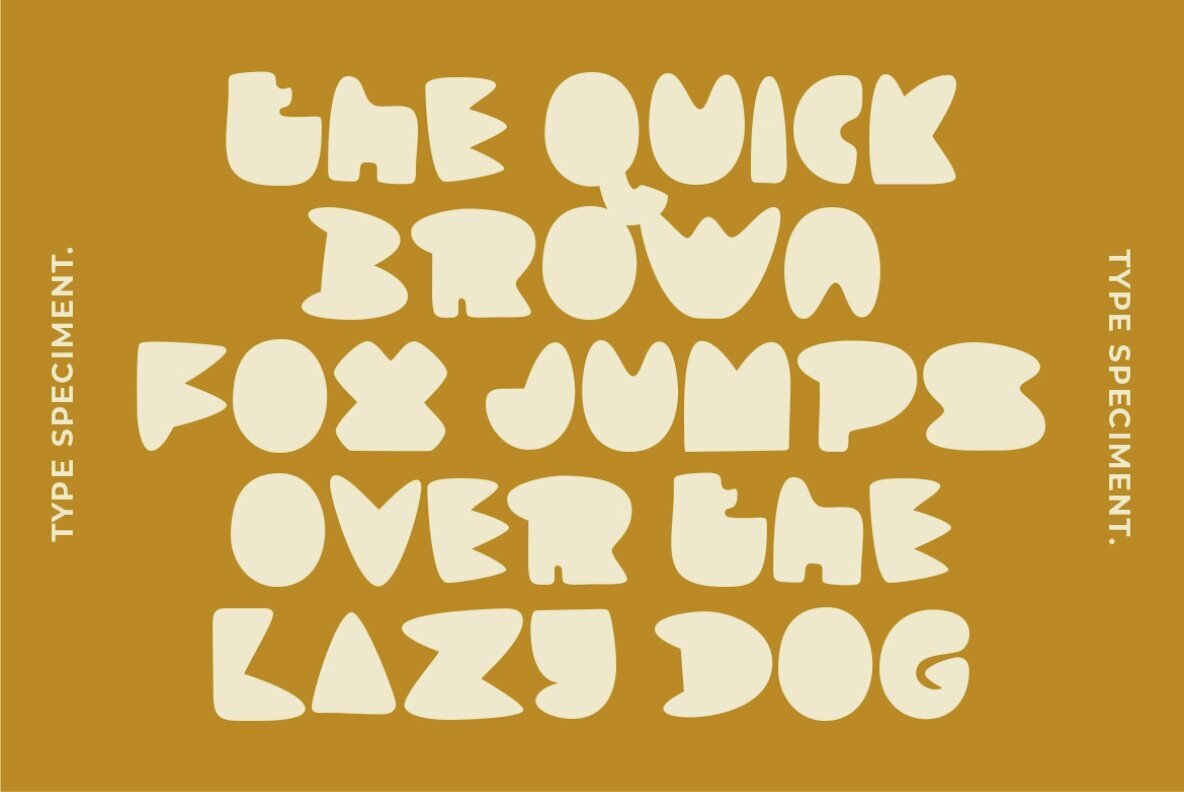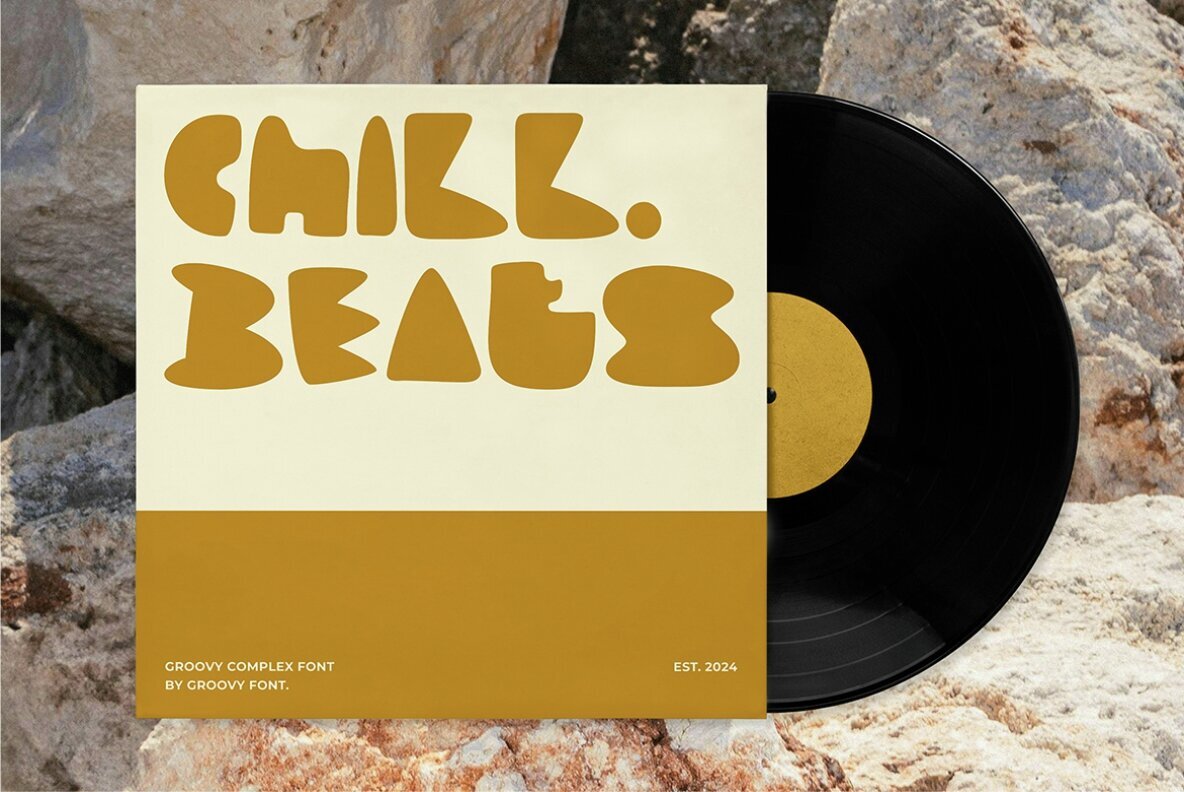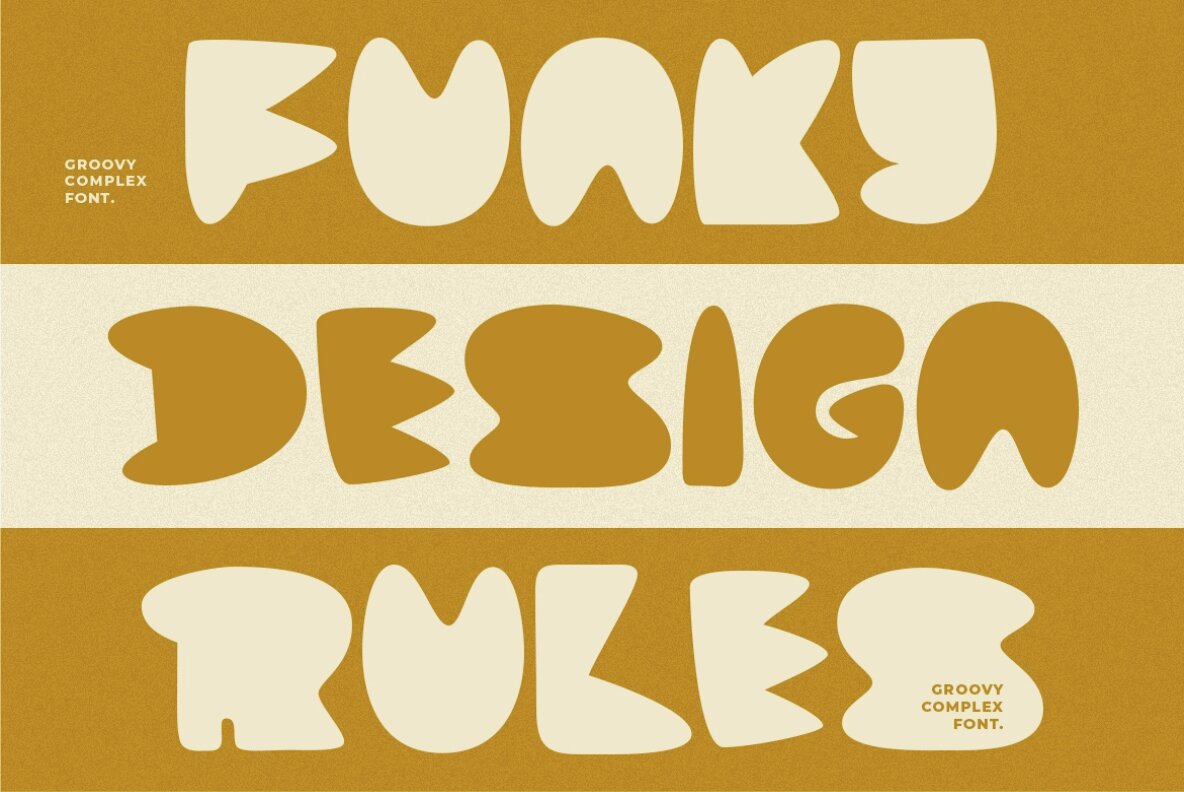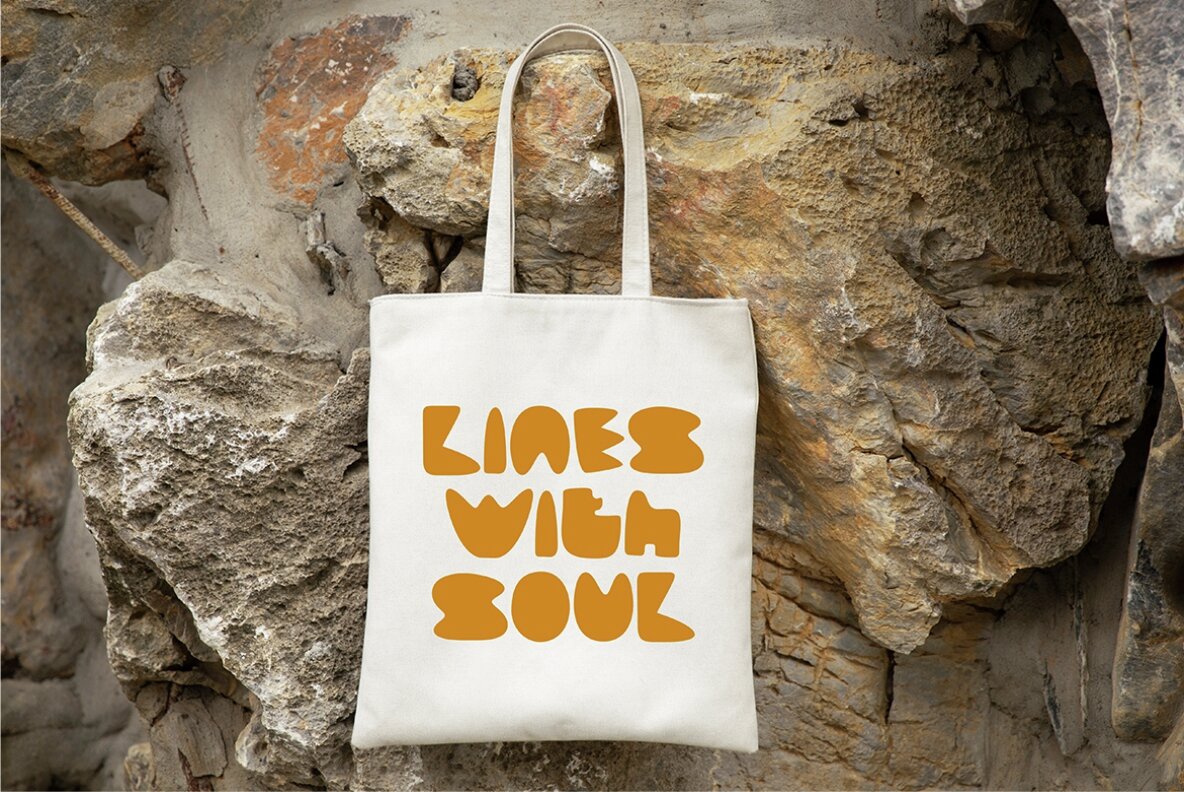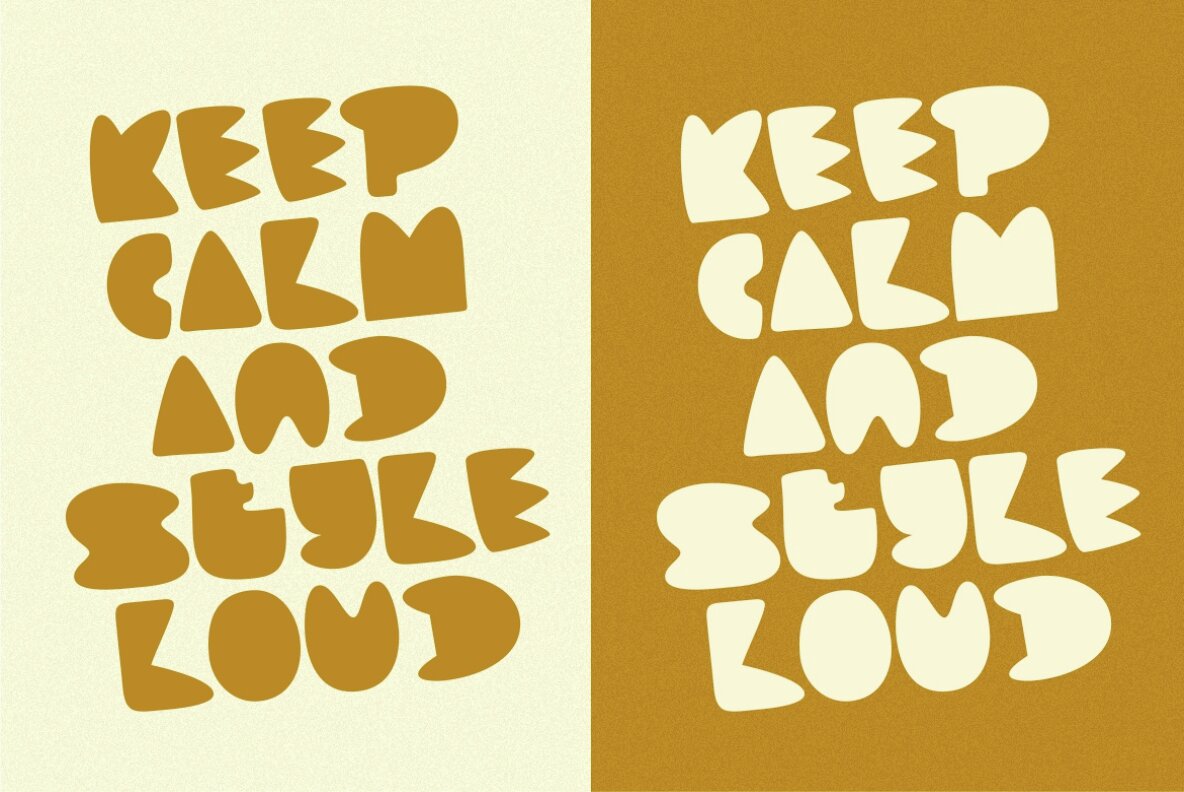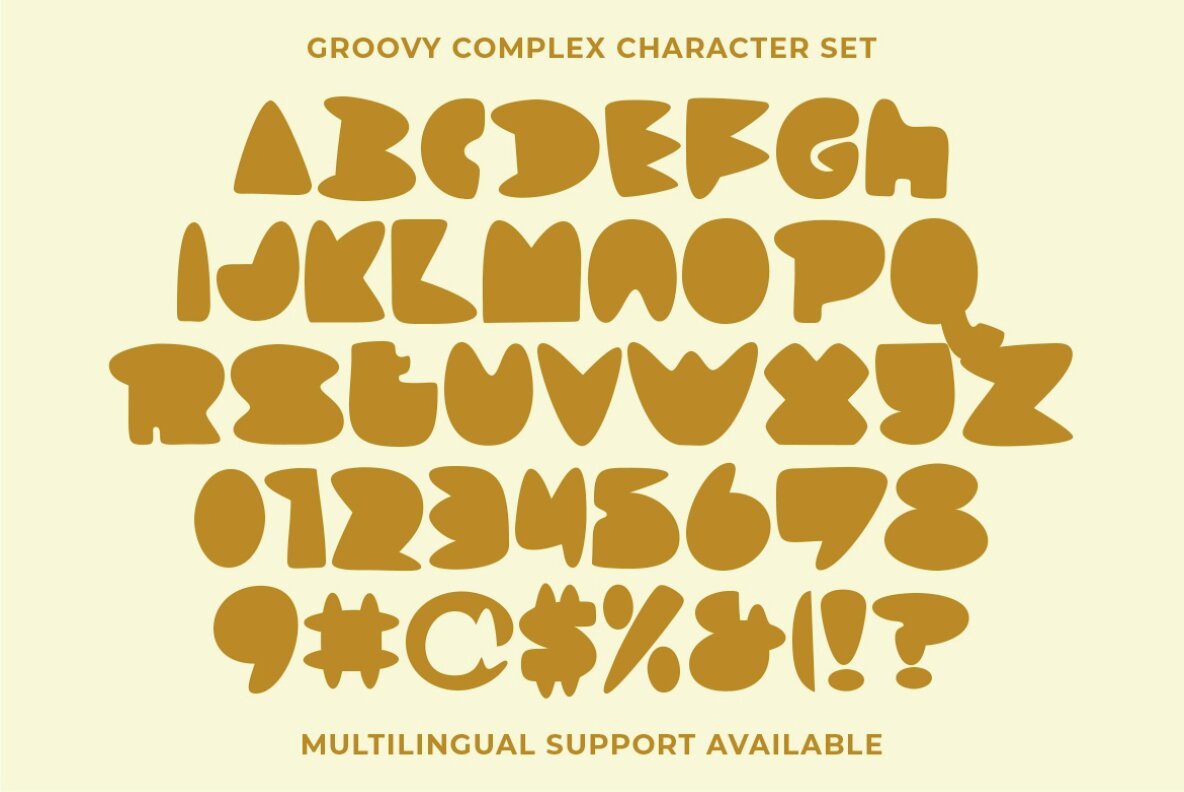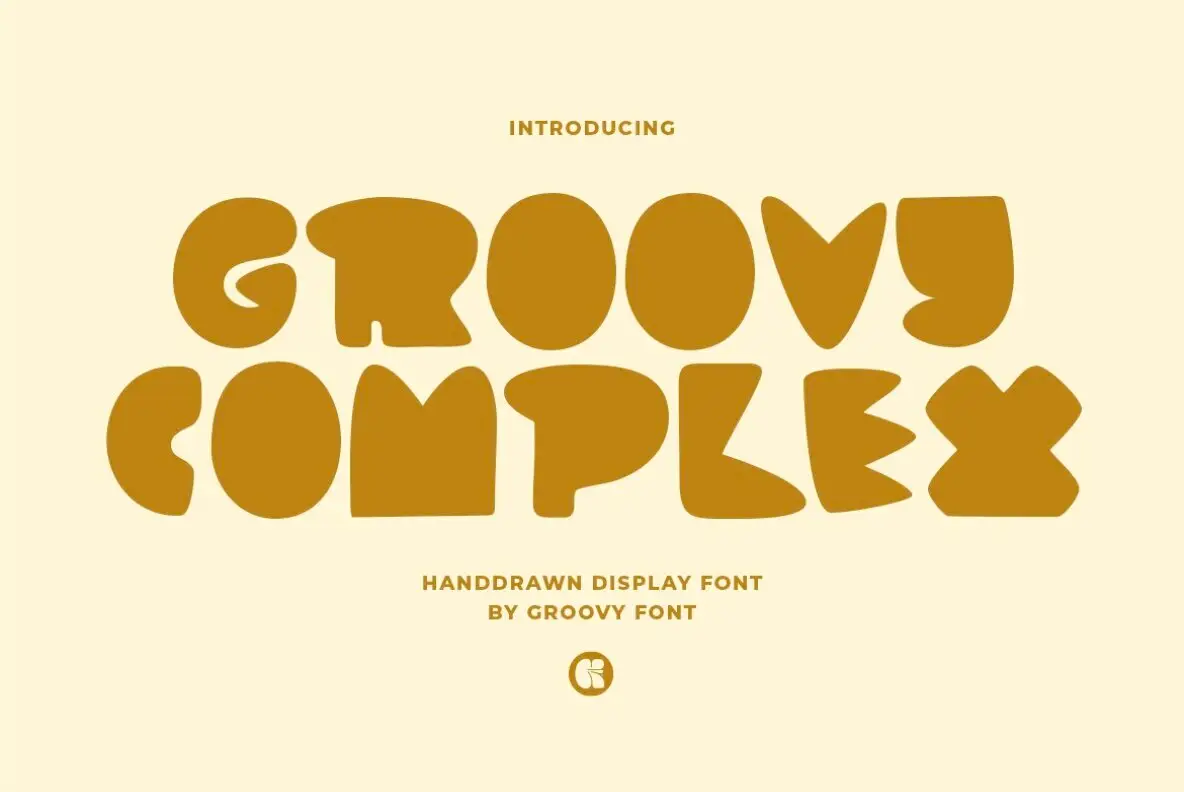
Groovy Complex Font
Groovy Complex
Groovy Complex is a distinctive hand-drawn display font designed to imbue your projects with a creative flair. With its unique style, this font stands out by omitting traditional letter holes while maintaining excellent legibility. Ideal for designs requiring a handcrafted or artistic appeal, Groovy Complex is both versatile and striking.
Whether you're working on a branding project, poster design, or any creative endeavor, this font offers a charming character that draws attention. Its artistic nuances make it suitable for a variety of applications, ensuring your work leaves a memorable impression. Make Groovy Complex your go-to choice for adding a touch of creativity and uniqueness to your design repertoire.